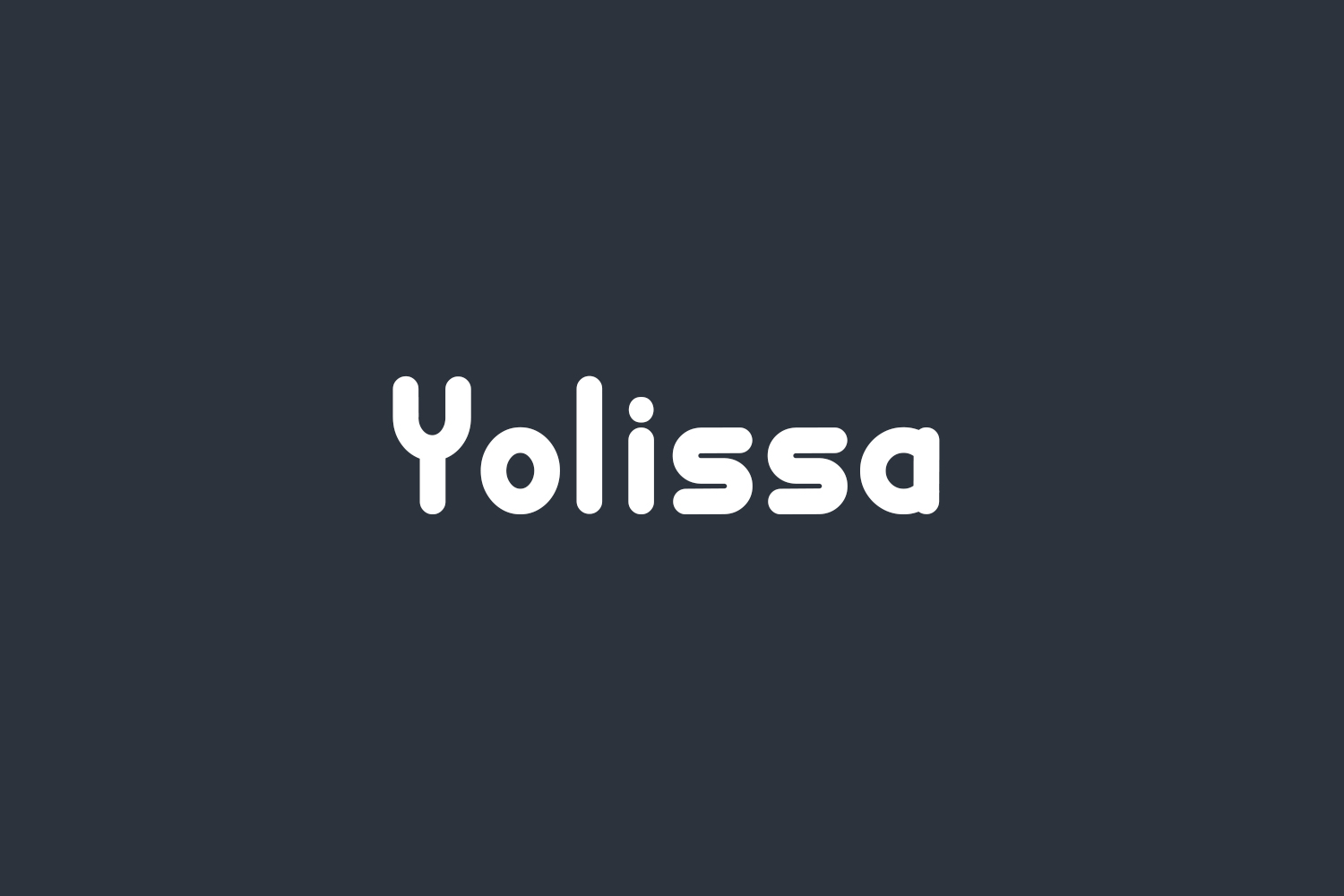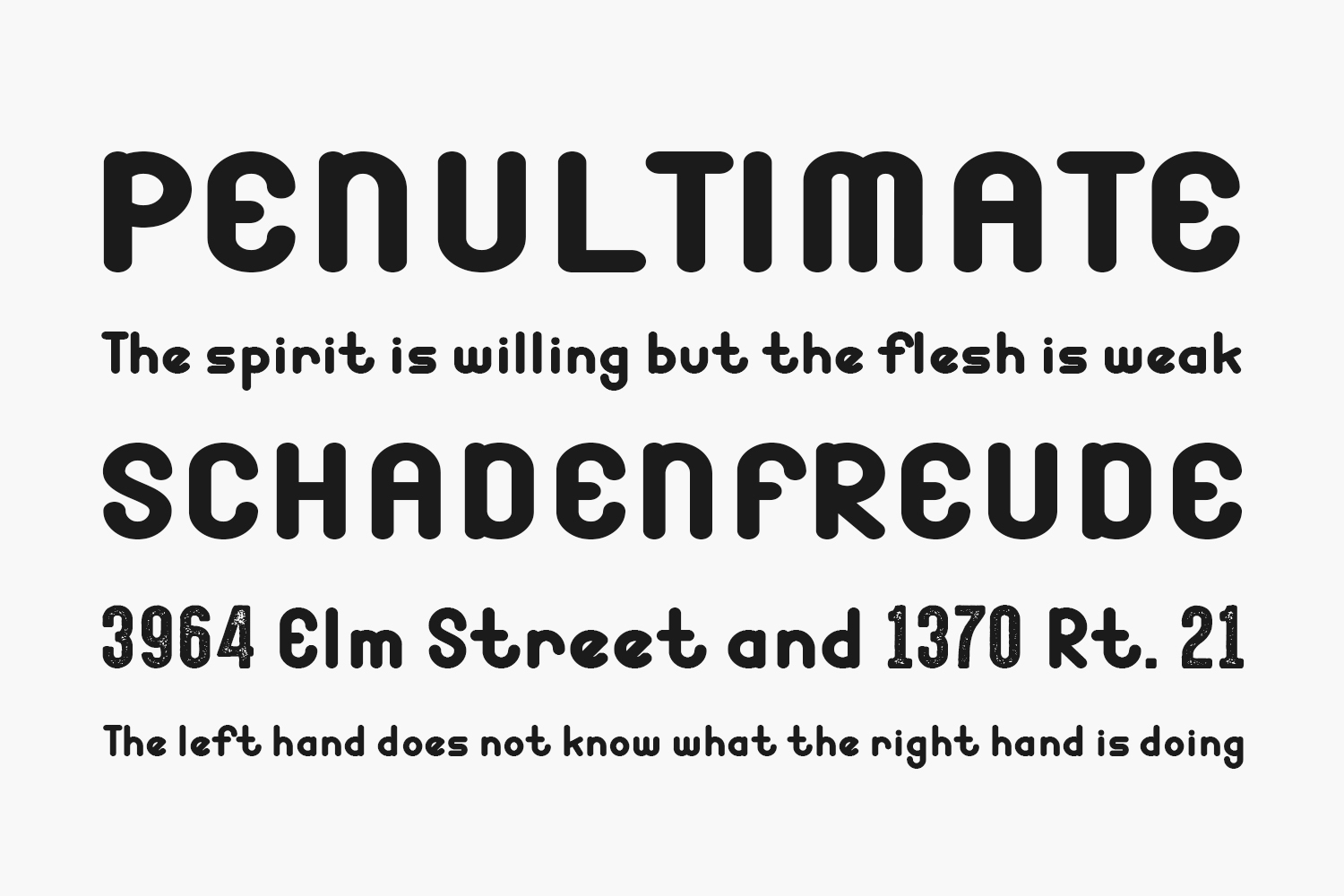
Yolissa Free Font is an elegant and modern sans serif font with an undeniably clean feel. With its neat and beautiful arrangement of letters, this typeface will look outstanding in both formal and non-formal designs. Please purchase the full version for commercial use.